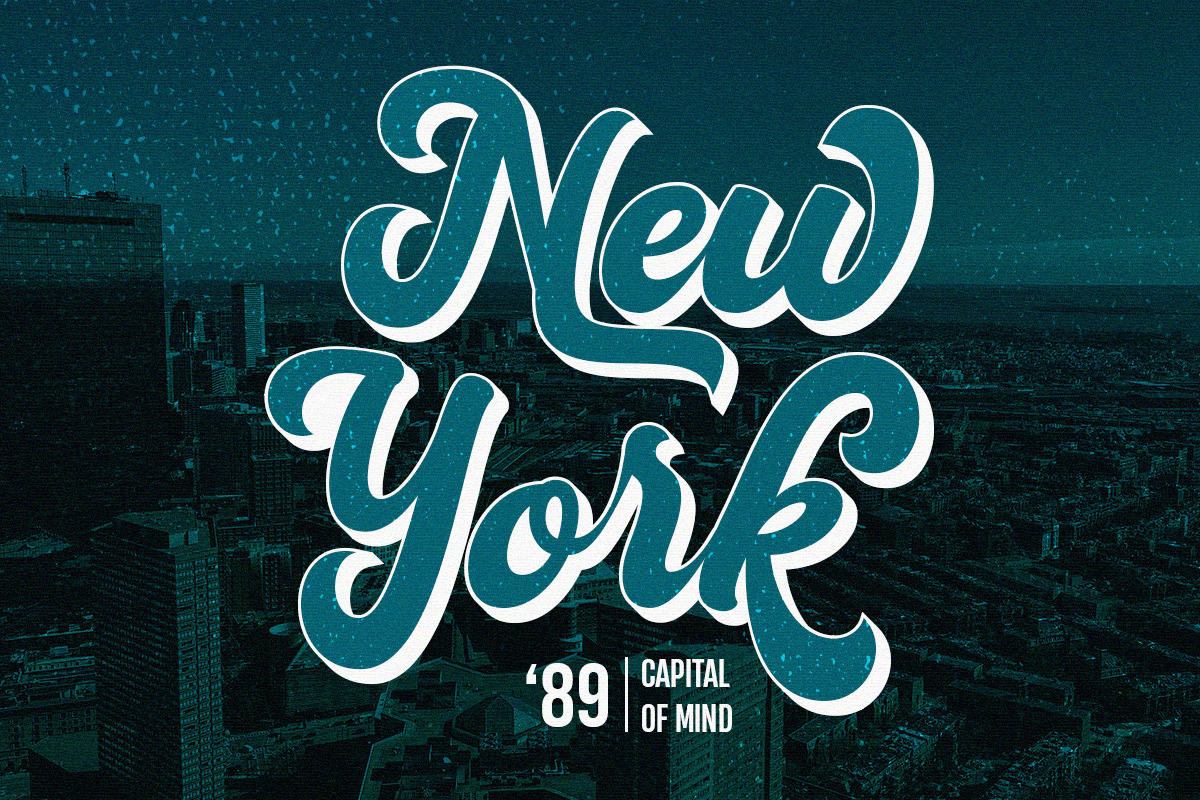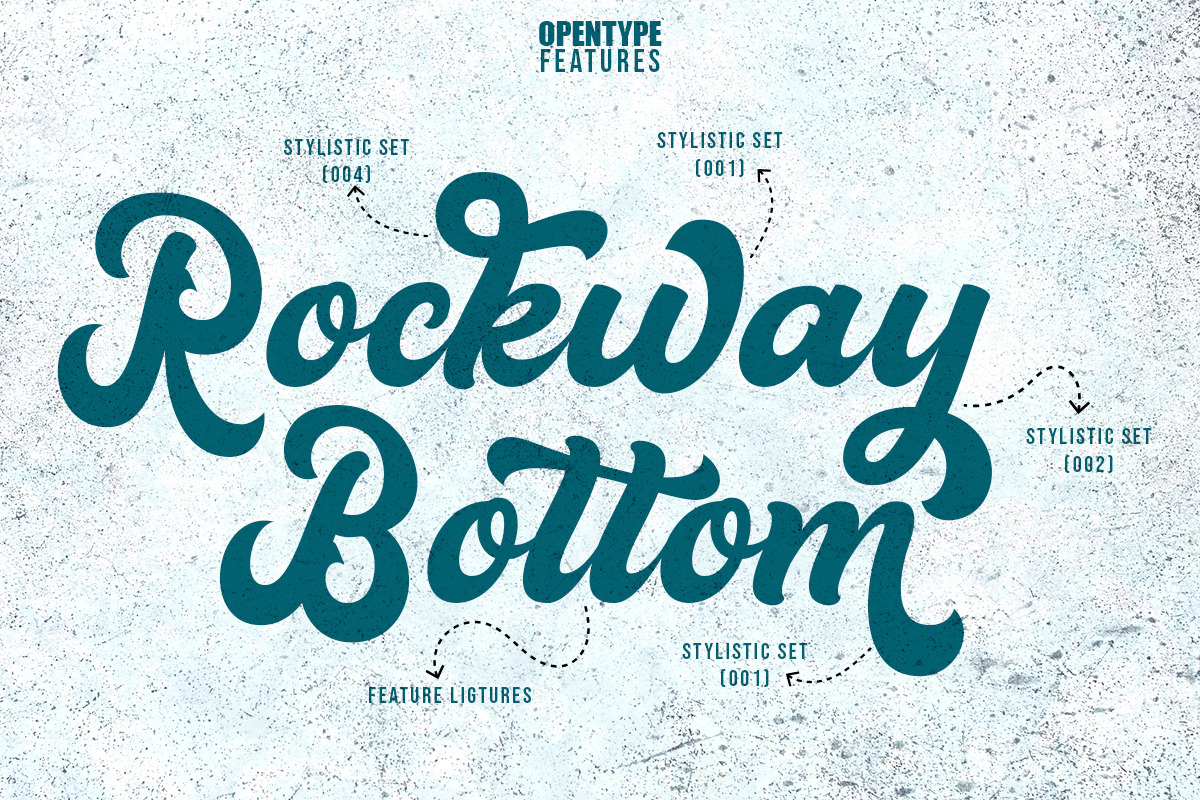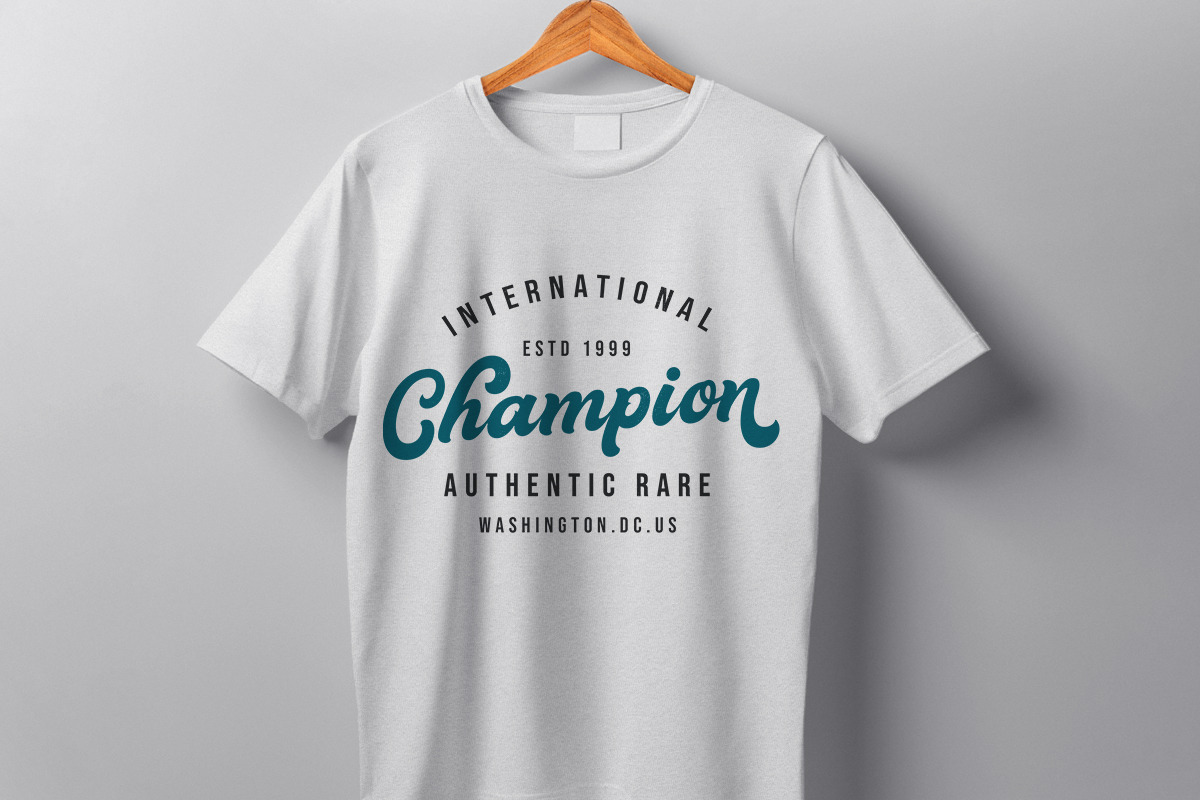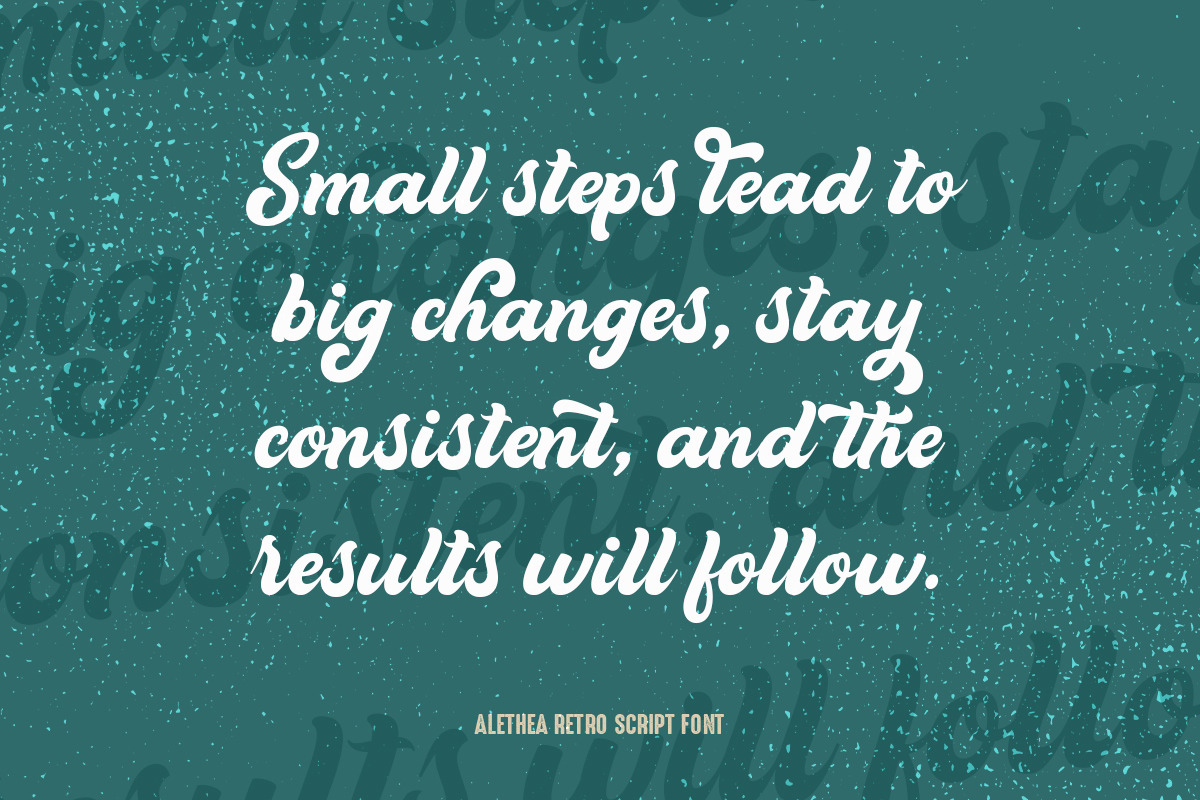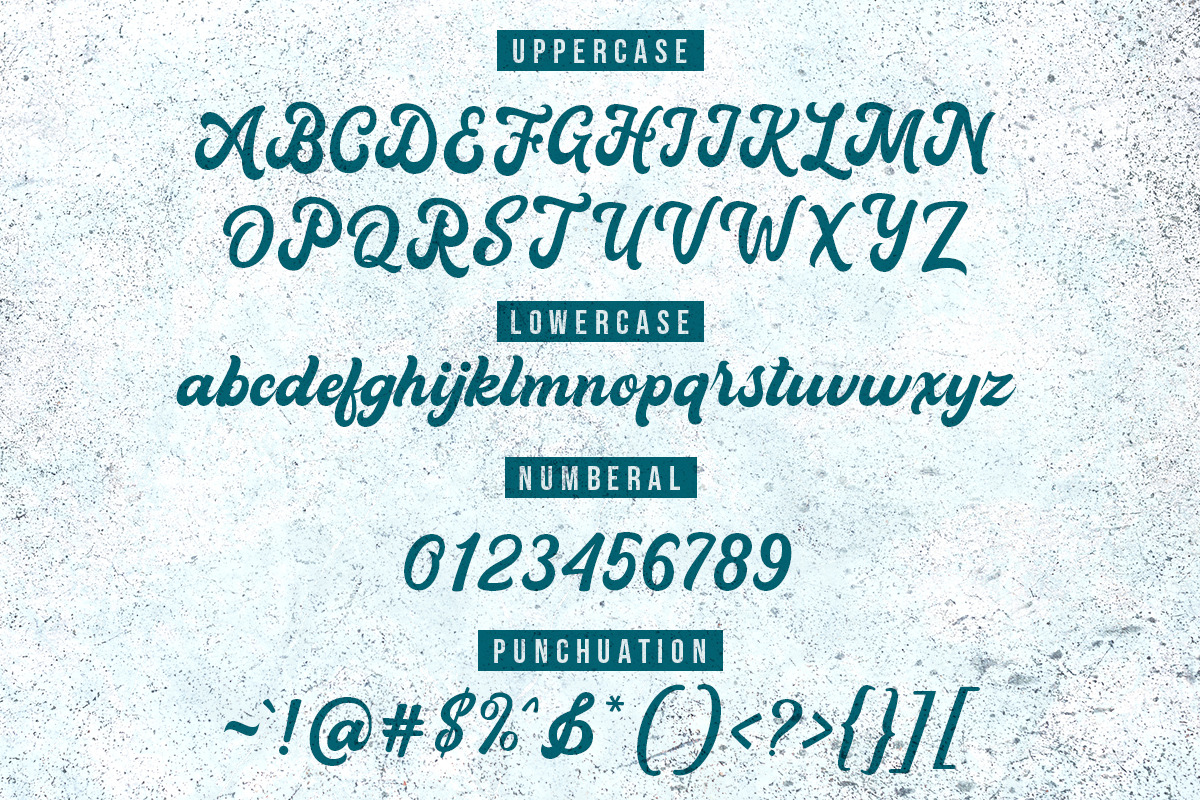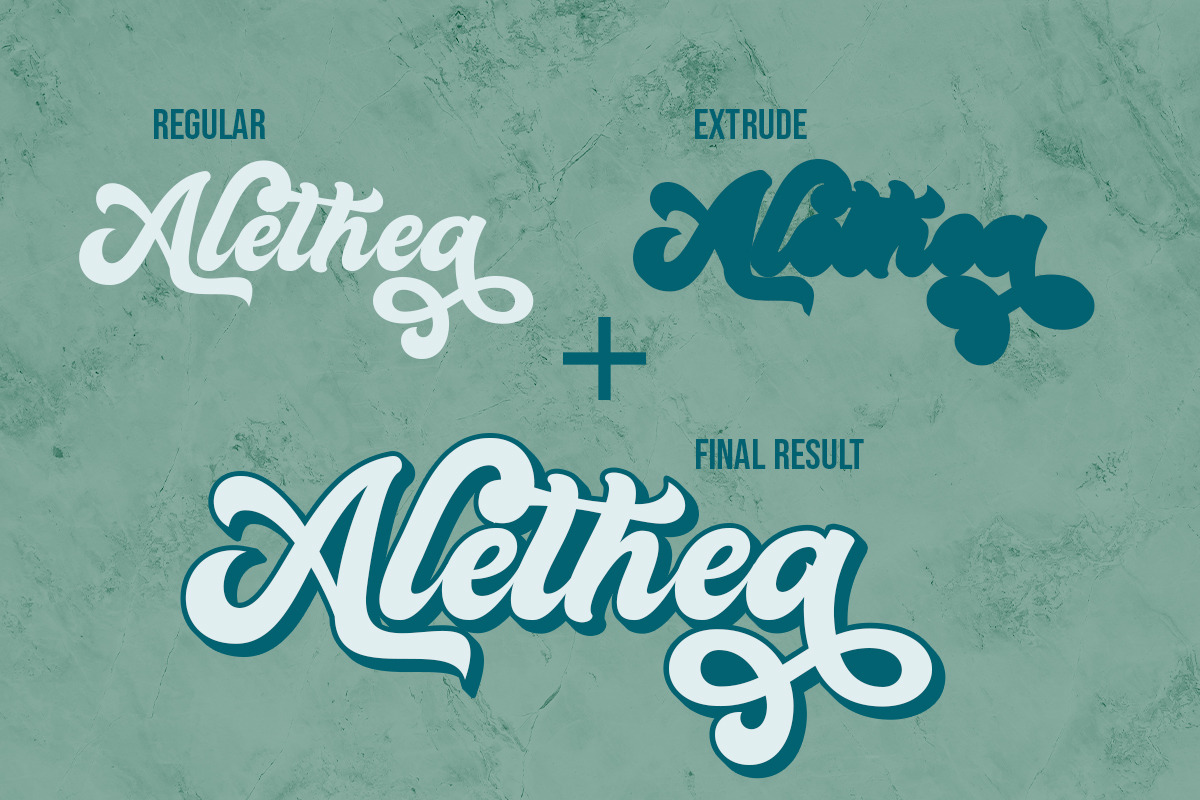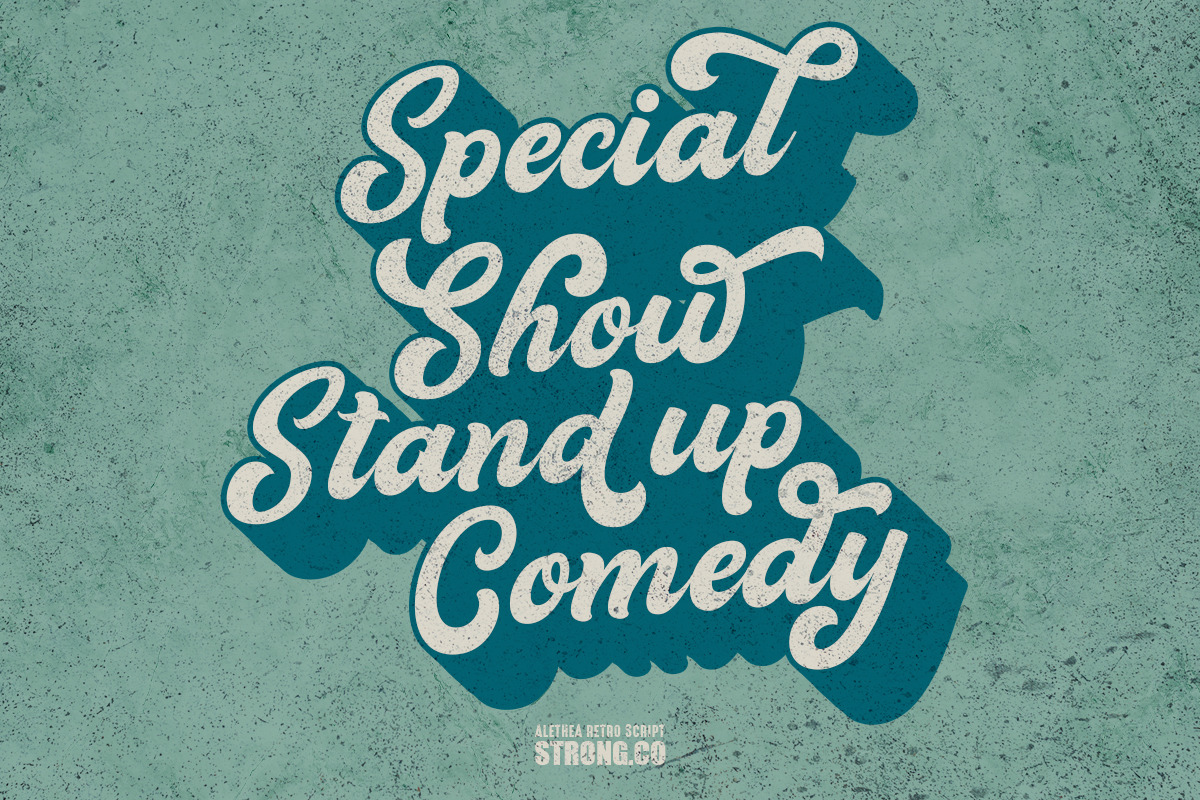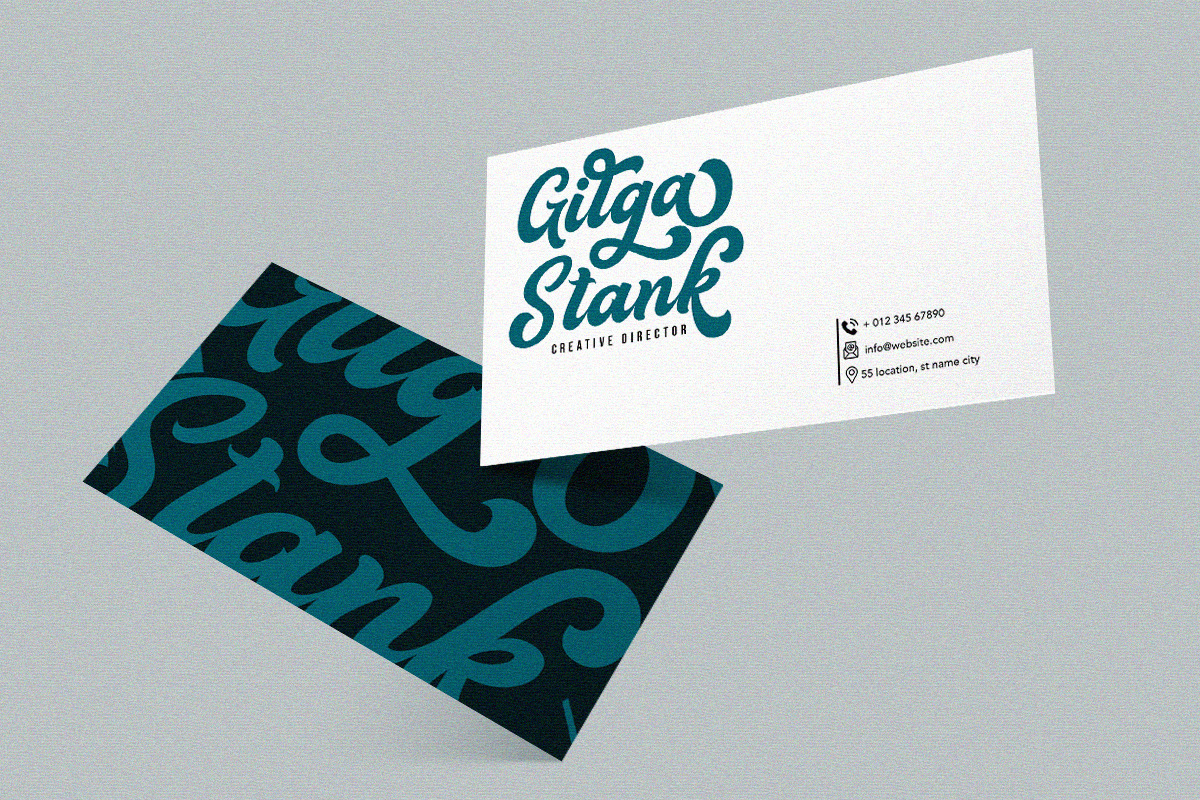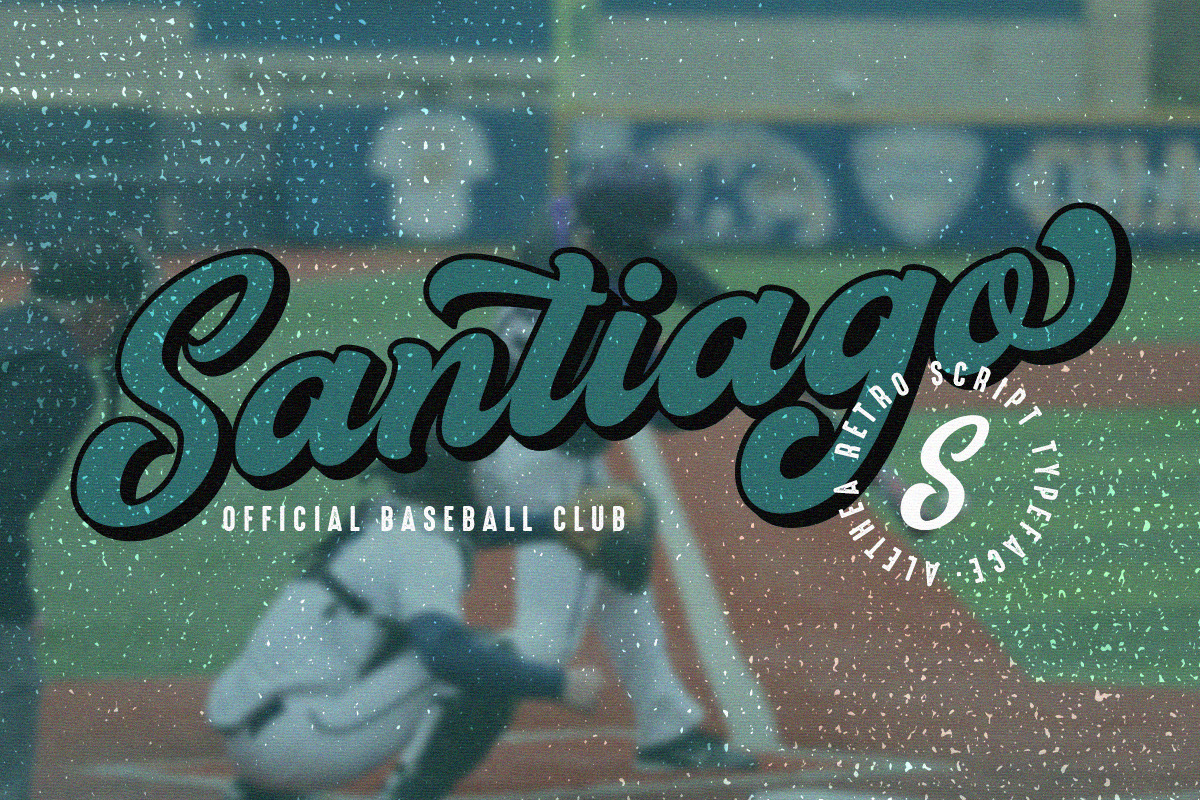
Alethea
Alethea is a vintage retro font. Inspired by retro typography and lettering from the 70s and 80s combined with a bold typographic style. This font is perfect for vintage and retro designs, badges, logos, t-shirts, posters, branding, packaging, signs, book covers and more!
*Note This font does not come with "Shadow/ Extrude", this font was created manually for display purposes only. You can try this tutorial if you want to make it. I made it in Corel DRAW software https://www.youtube.com/watch?v=S6BCkX_cywo